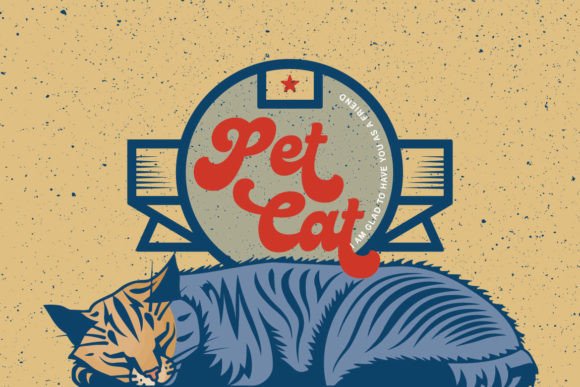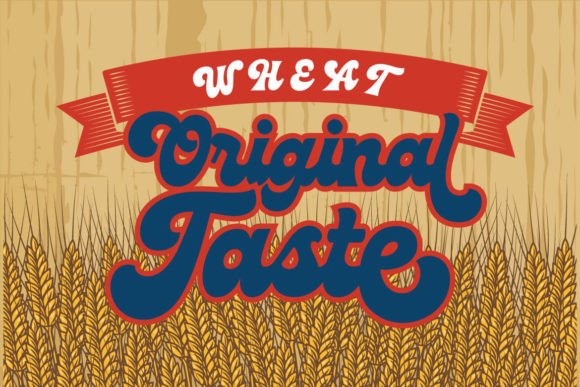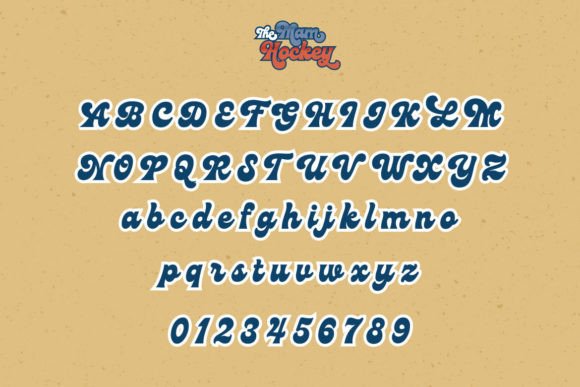
The Mam Hockey is a retro font that is a bold script with a charming touch of style. The Mam Hockey is very suitable for your retro design needs, in addition, you can use it for other important purposes that are more diverse. Use this font for typography, mockup, headings, brandings, wall art, street art, and many more.
The Mam Hockey Font